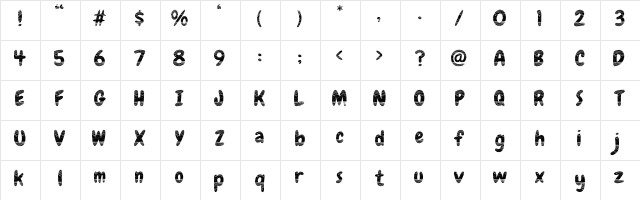
Follow Wood wild Regular
Design Context for Follow Wood wild Typeface
Follow Wood wild taps into classic Western woodtype traditions — bold, characterful, and impossible to ignore.
A natural fit for craft spirits, ranch branding, rodeo events, and Americana-inspired design work.
Font Pairing: Combine Follow Wood wild with a simple slab or neutral sans — period-accurate companions reinforce the vintage feel without competing for attention.
Pro Tip: Use Follow Wood wild for short, impactful bursts of text — it shines in poster headlines and product names rather than extended copy.